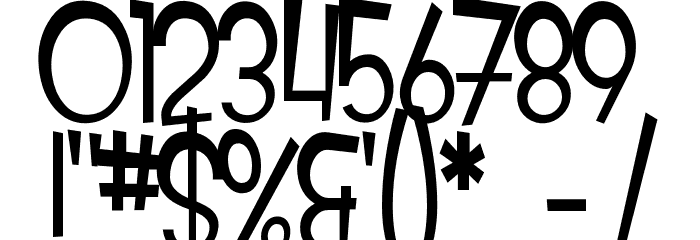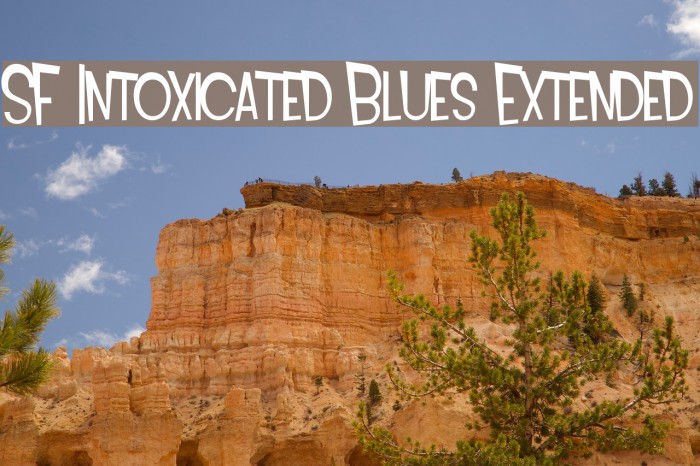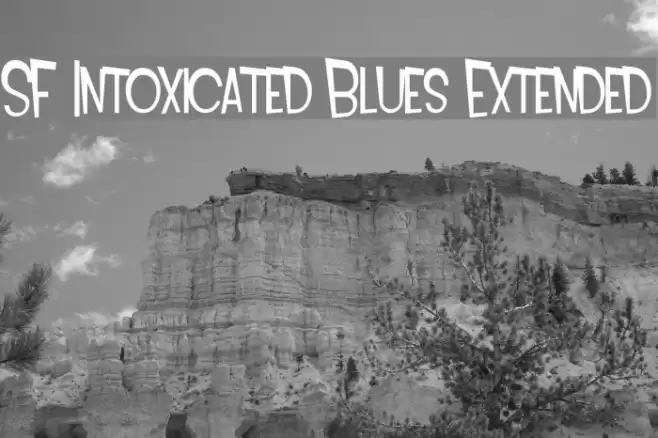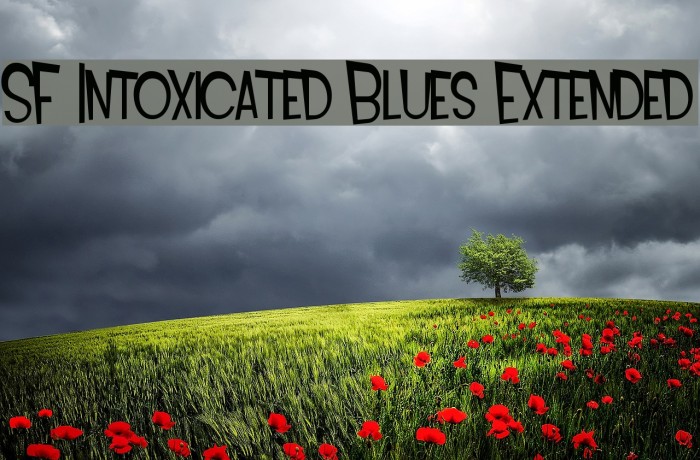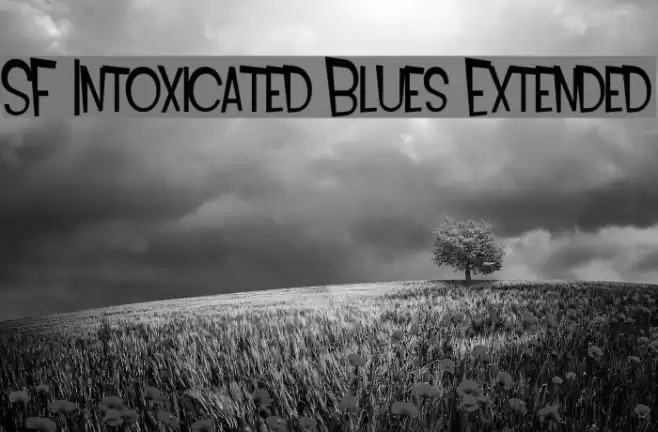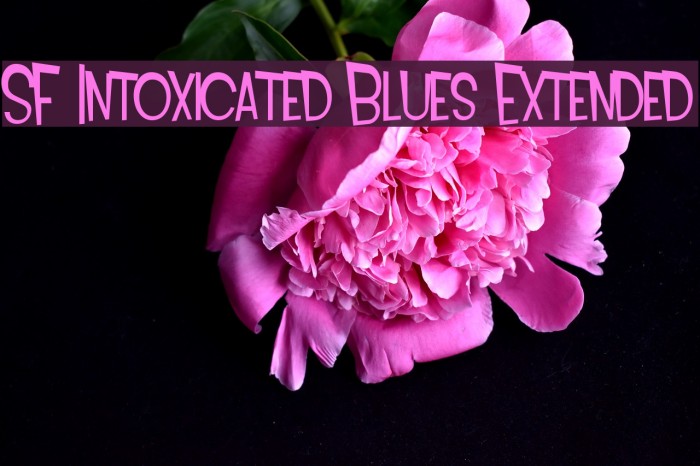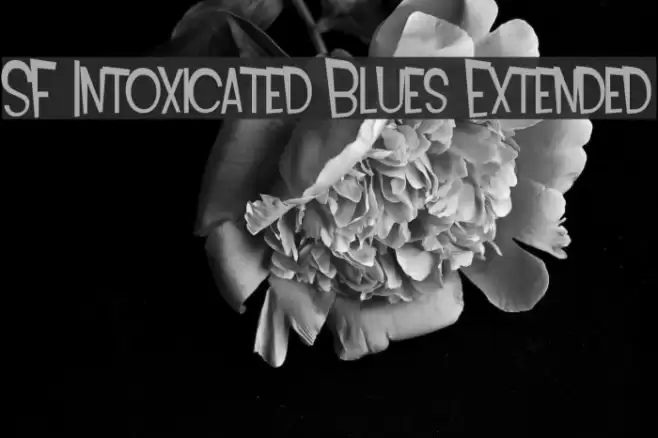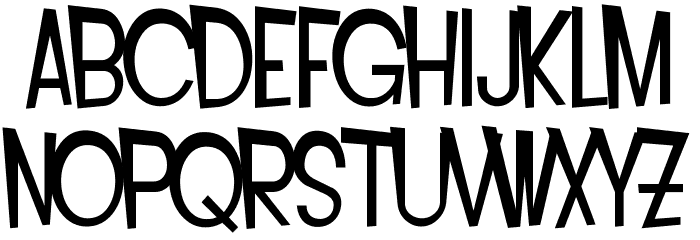
SF Intoxicated Blues Extended Font
SF Intoxicated Blues Extended Description
This font features a bold and playful design with exaggerated, uneven strokes that give it a lively and dynamic appearance. The characters are slightly tilted and vary in width, creating a sense of movement and energy. The uppercase letters are particularly striking, with sharp angles and a quirky, hand-drawn feel. The numbers and special characters maintain this whimsical style, making the font suitable for creative and informal projects. Its unique character spacing and high contrast in stroke thickness add to its distinctive look.
| Proposed Projects | Ideal for posters, album covers, children's books, and any project requiring a fun and energetic typeface. |